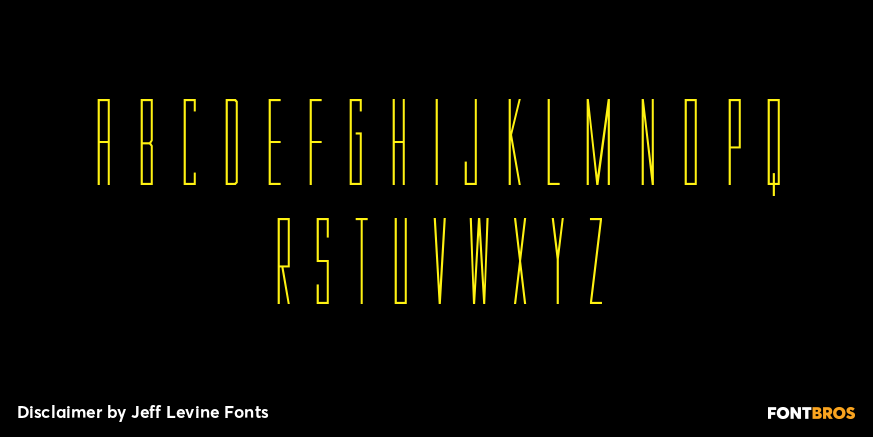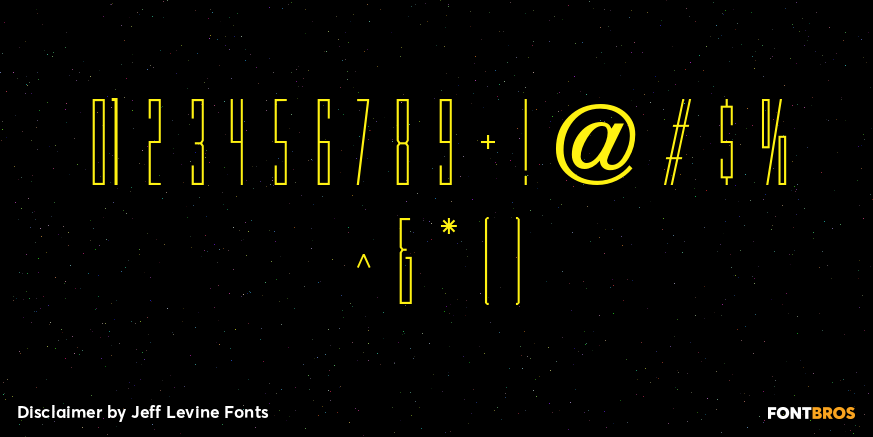
Disclaimer
Disclaimer JNL is a narrow, ultra-compact sans serif design that's perfect for fine print clauses or anywhere space is limited - but word copy isn't.